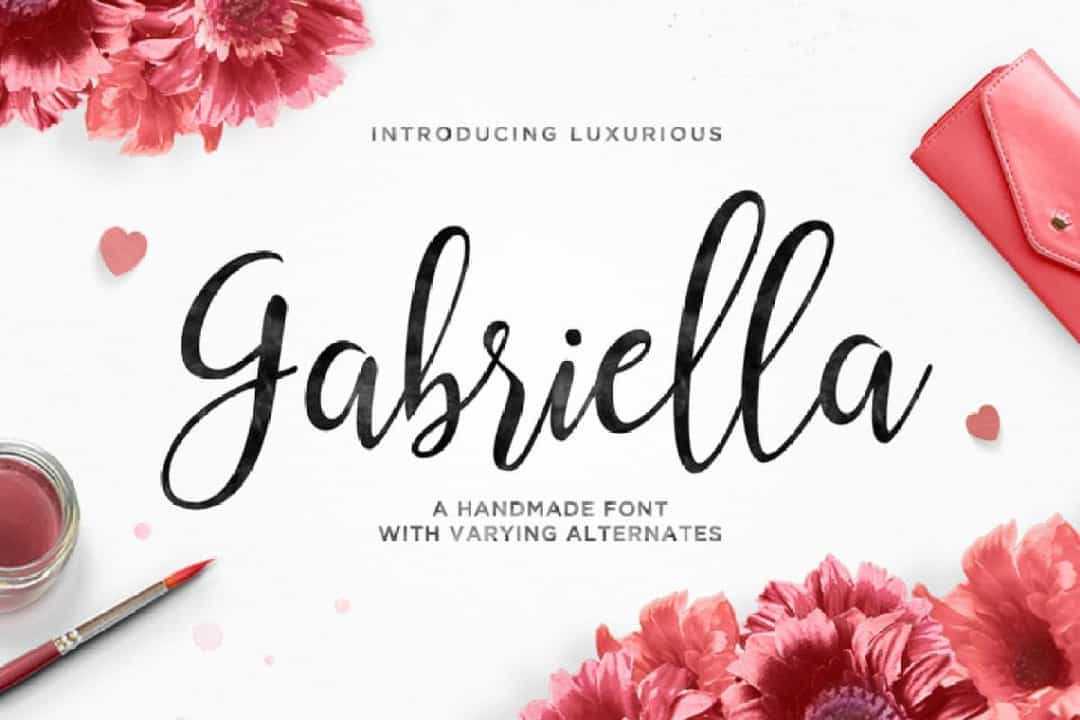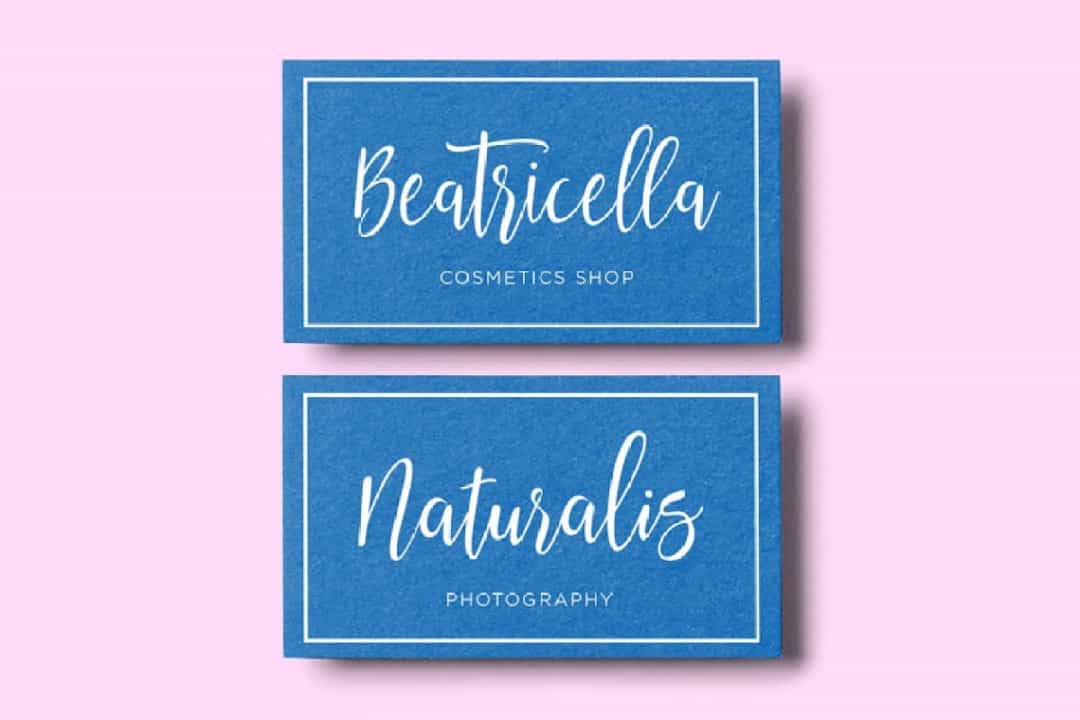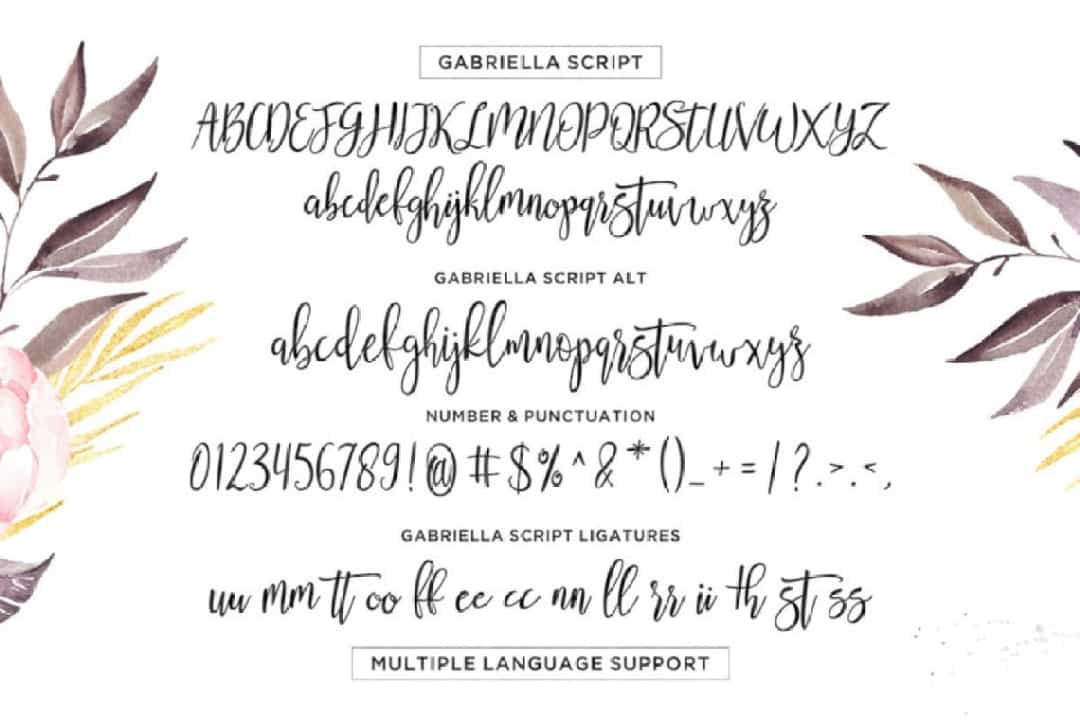
Gabriella is a brush script font style that is modern calligraphy font that is written by hand using brush and pen. It was painted on paper and just after that the final digital optimization and scanning were made. Gabriella boasts of capitals, lower case punctuation and even other language versions of each and every character.